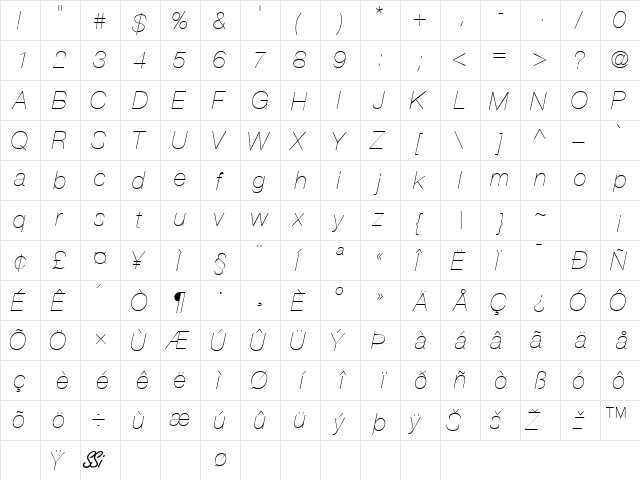
ContextRepriseLightSSK Italic
Design Context for ContextRepriseLightSSK Typeface
ContextRepriseLightSSK is a composed and adaptable typeface that performs quietly and consistently across a wide range of design contexts. The slanted form adds forward momentum and visual energy. Its slender proportions lend an understated elegance to any composition.
Pro Tip: Use ContextRepriseLightSSK for emphasis, pull quotes, and subheadings where its slanted energy can add rhythm to the layout.